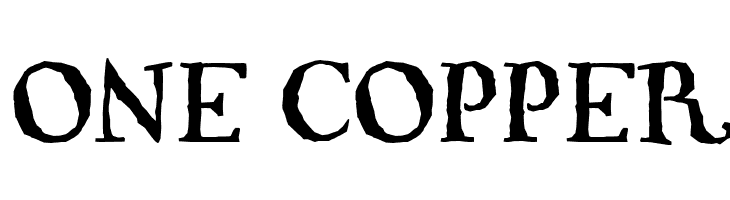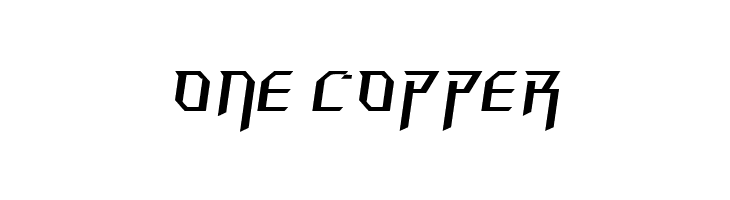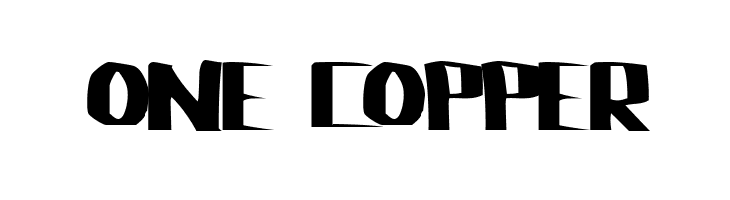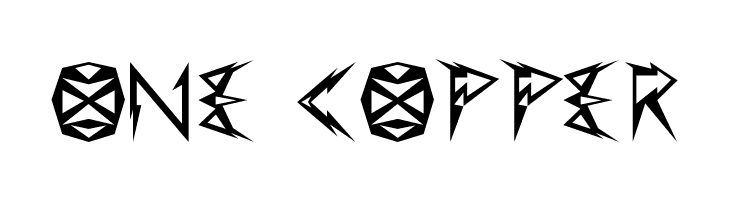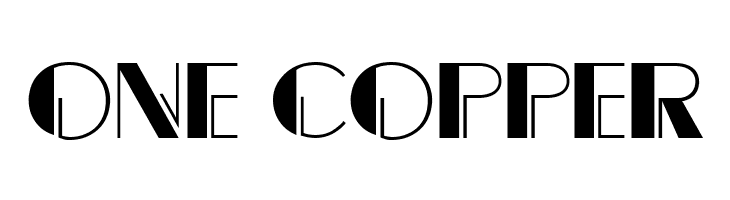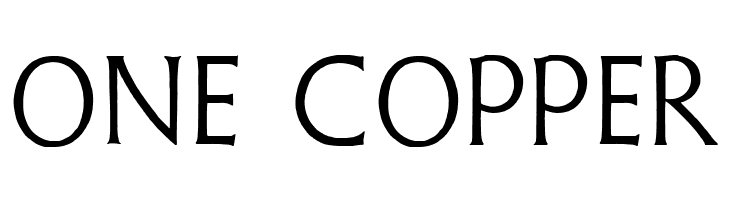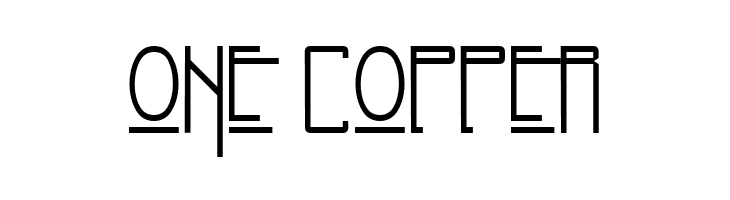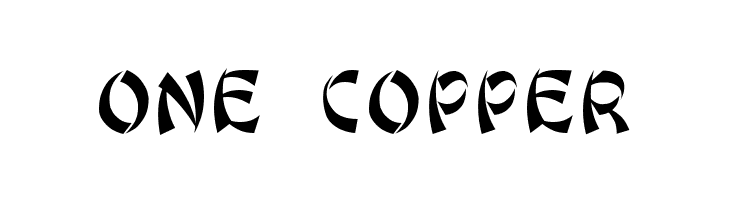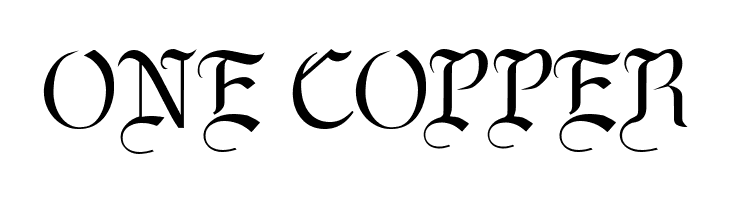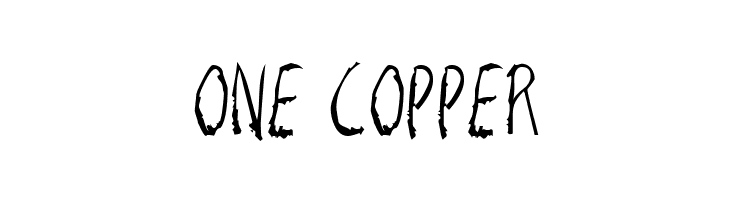
( Fonts by Patrick Broderick )
A bold, gothic-style font with sharp, angular edges and a distressed look.
( Fonts by Dieter Schumacher )
A sharp, angular font with a futuristic and dynamic style.
( Fonts by Spork Thug Typography - Josh Wilhelm - www.lifewithouttaffy.com/taffy/blog )
A bold, edgy font with sharp angles and a modern feel.
A bold, angular font with sharp, geometric shapes and dynamic energy.
A bold, geometric font with sharp angles and a blocky, industrial style.
A classic serif font with sharp serifs and moderate stroke contrast.
A geometric and modern font with sharp angles and sleek lines.
A bold, dynamic font with sharp, angular strokes and artistic flair.
A bold, blackletter font with sharp, angular lines and high contrast.
( Fonts by www.fugit-tempus.de )
An ornate blackletter font with sharp, angular lines and decorative flourishes.
( Fonts by www.fonthead.com )
A bold, geometric font with sharp angles and a modern design.
A bold, graffiti-inspired font with sharp angles and a dynamic, hand-drawn style.
A bold, dynamic font with a slant and sharp serifs, ideal for impactful designs.
A bold, narrow font with high contrast and sharp angles.
A bold, italic font with sharp, angular edges and a dynamic, modern style.
A bold, italic font with sharp angles and a modern, dynamic style.
( Fonts by DeNada Industries )
A bold, edgy font with sharp, jagged edges and a distressed style.
( Fonts by Gilberto Bressan Junior )
A bold, edgy font with sharp, angular lines and high contrast, ideal for dynamic designs.
( Fonts by Daniel Gauthier )
A bold, geometric font with sharp angles and a modern aesthetic.